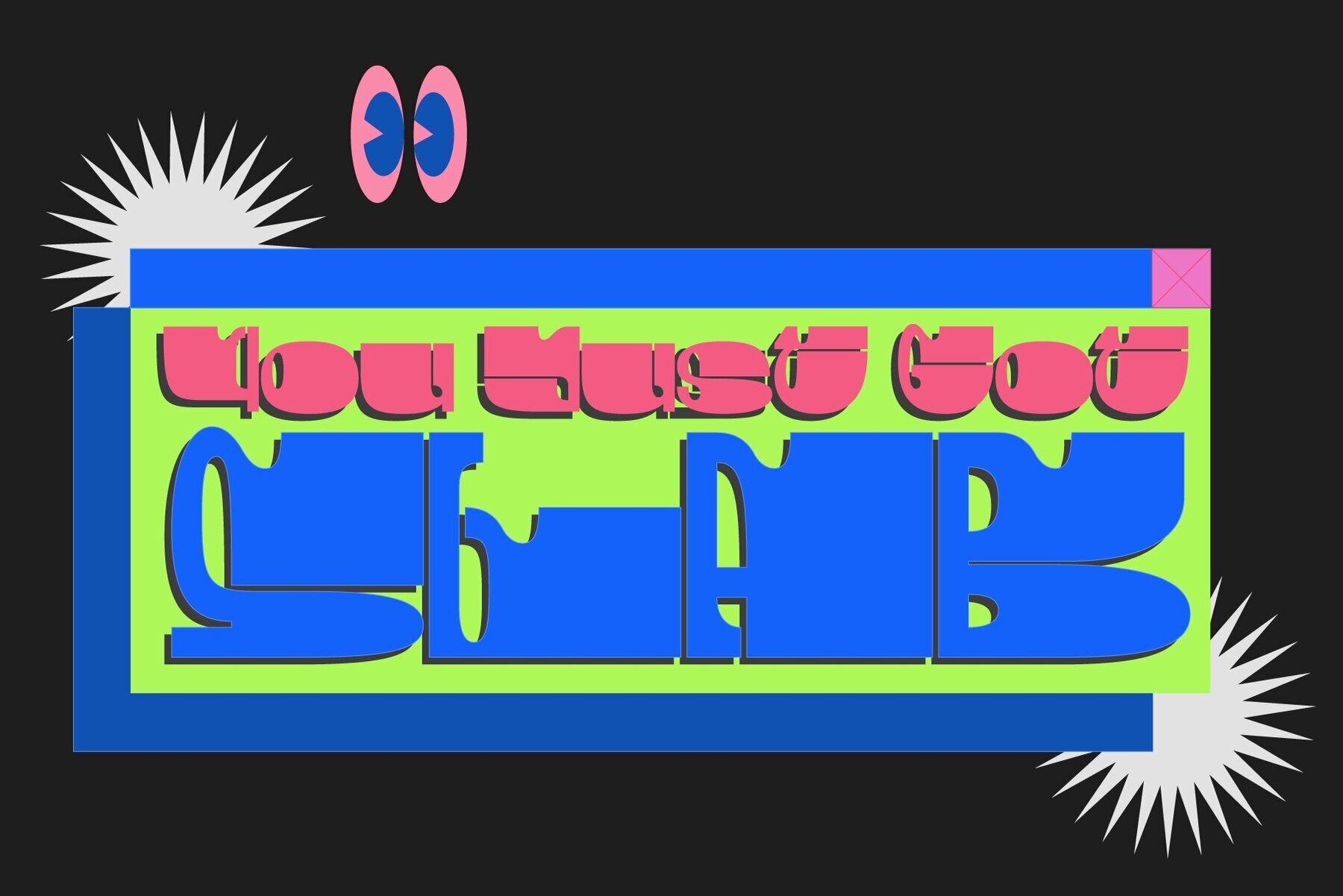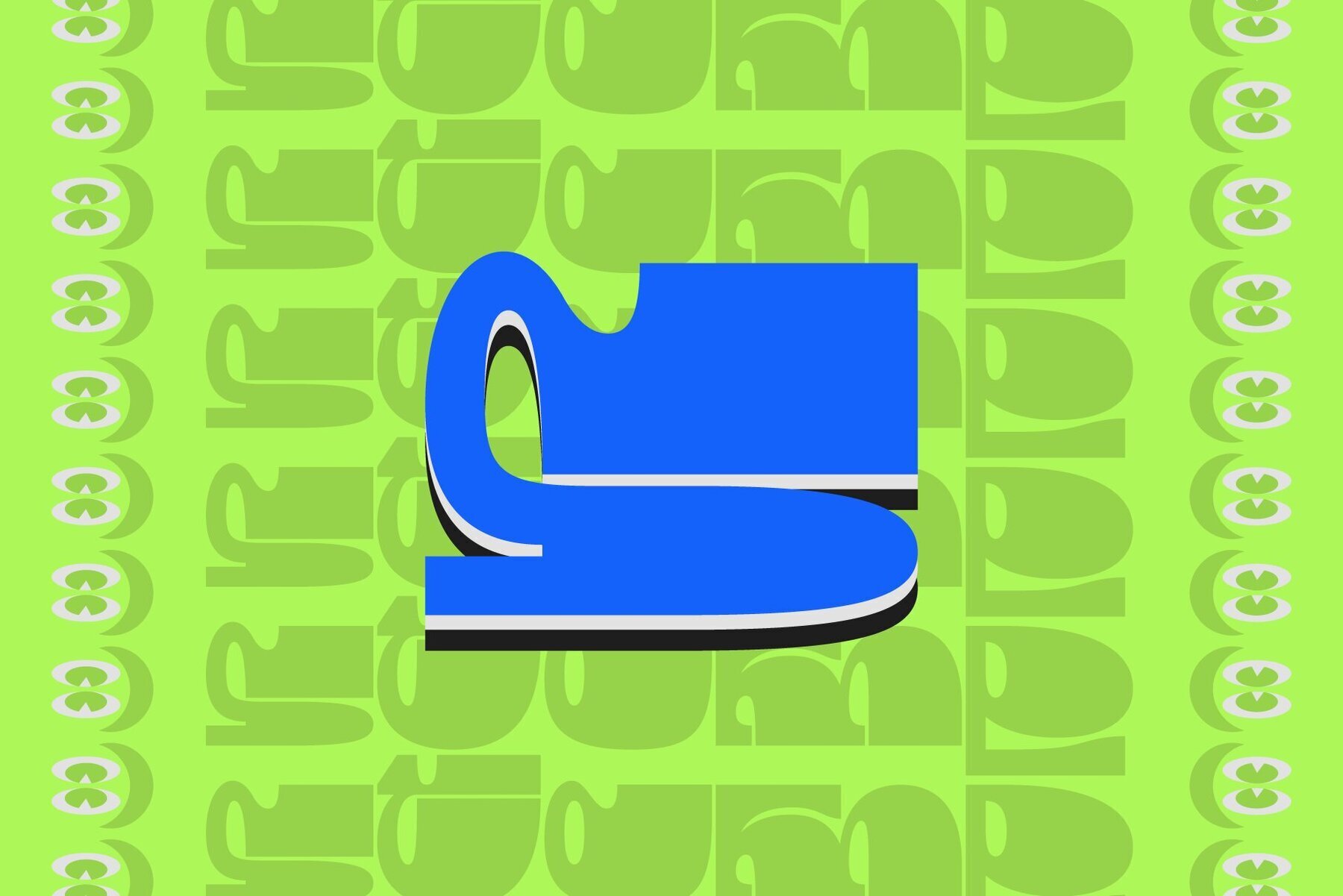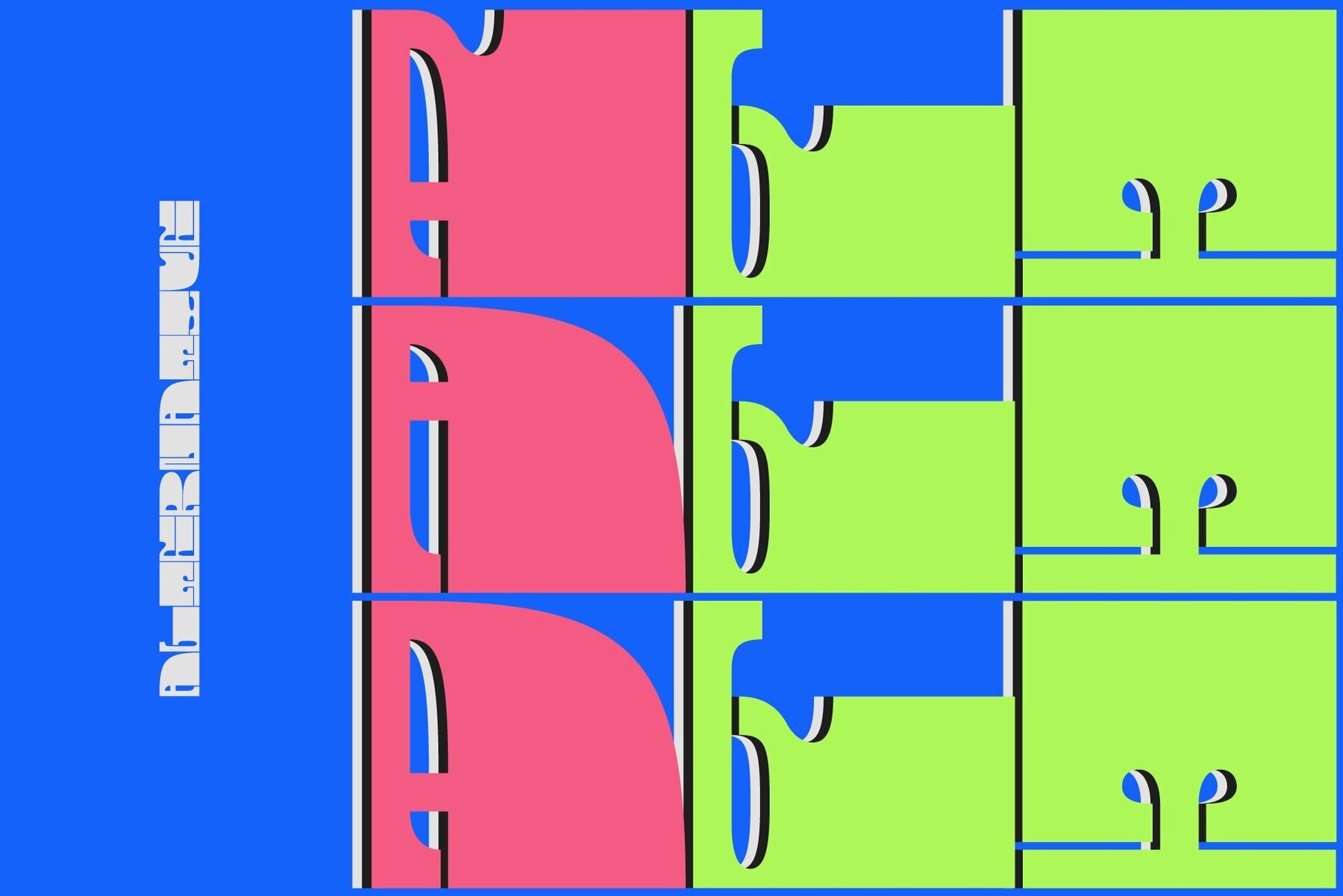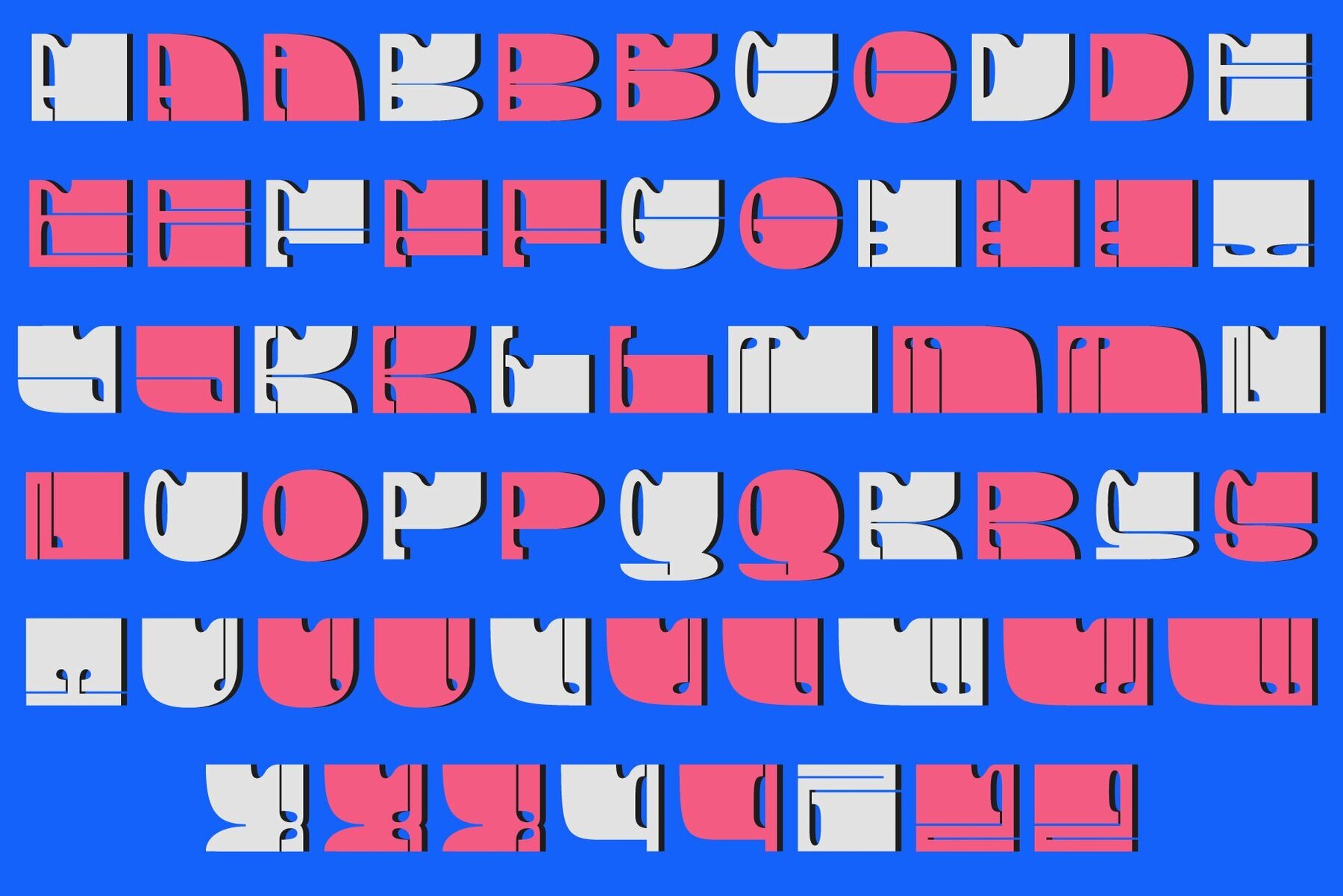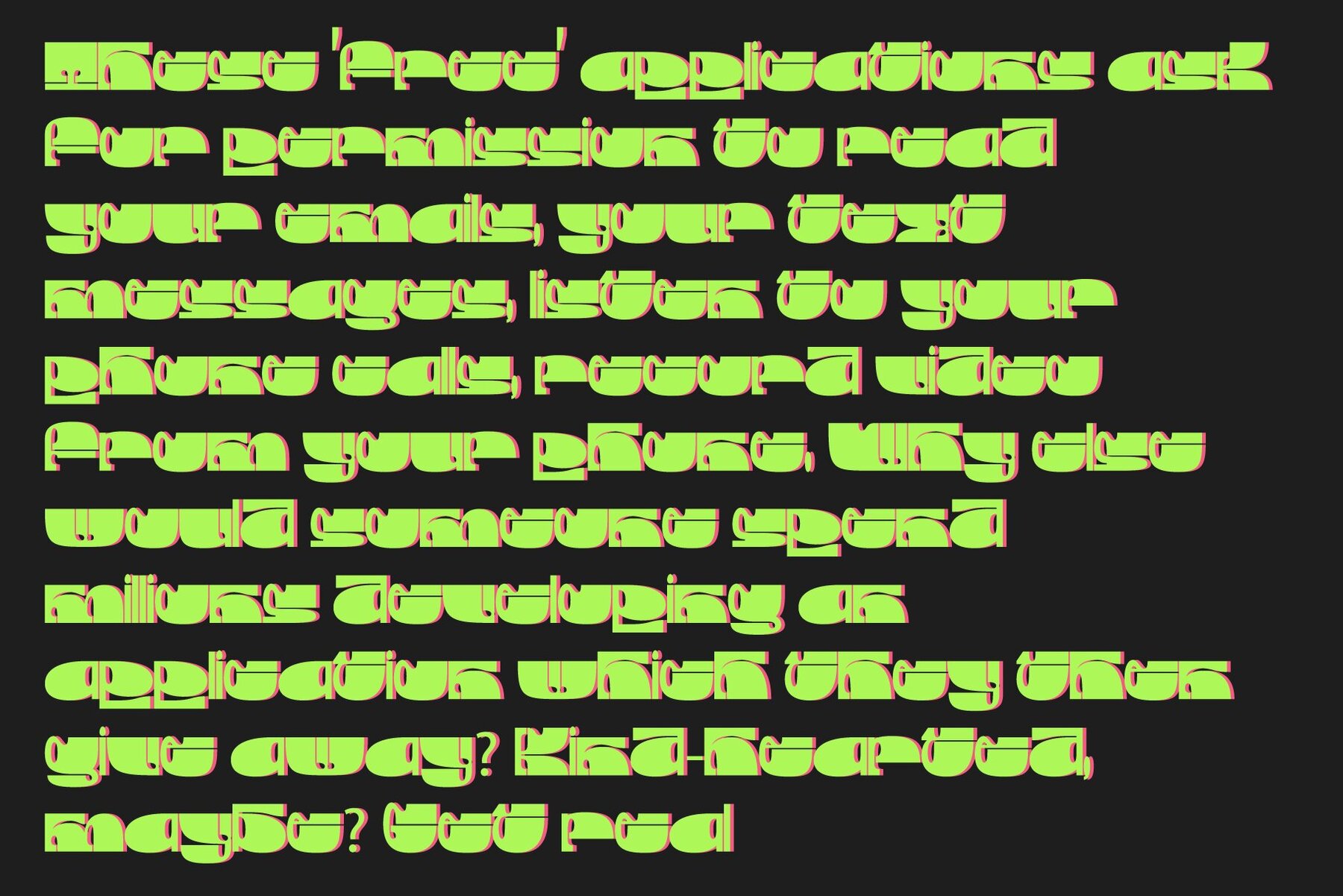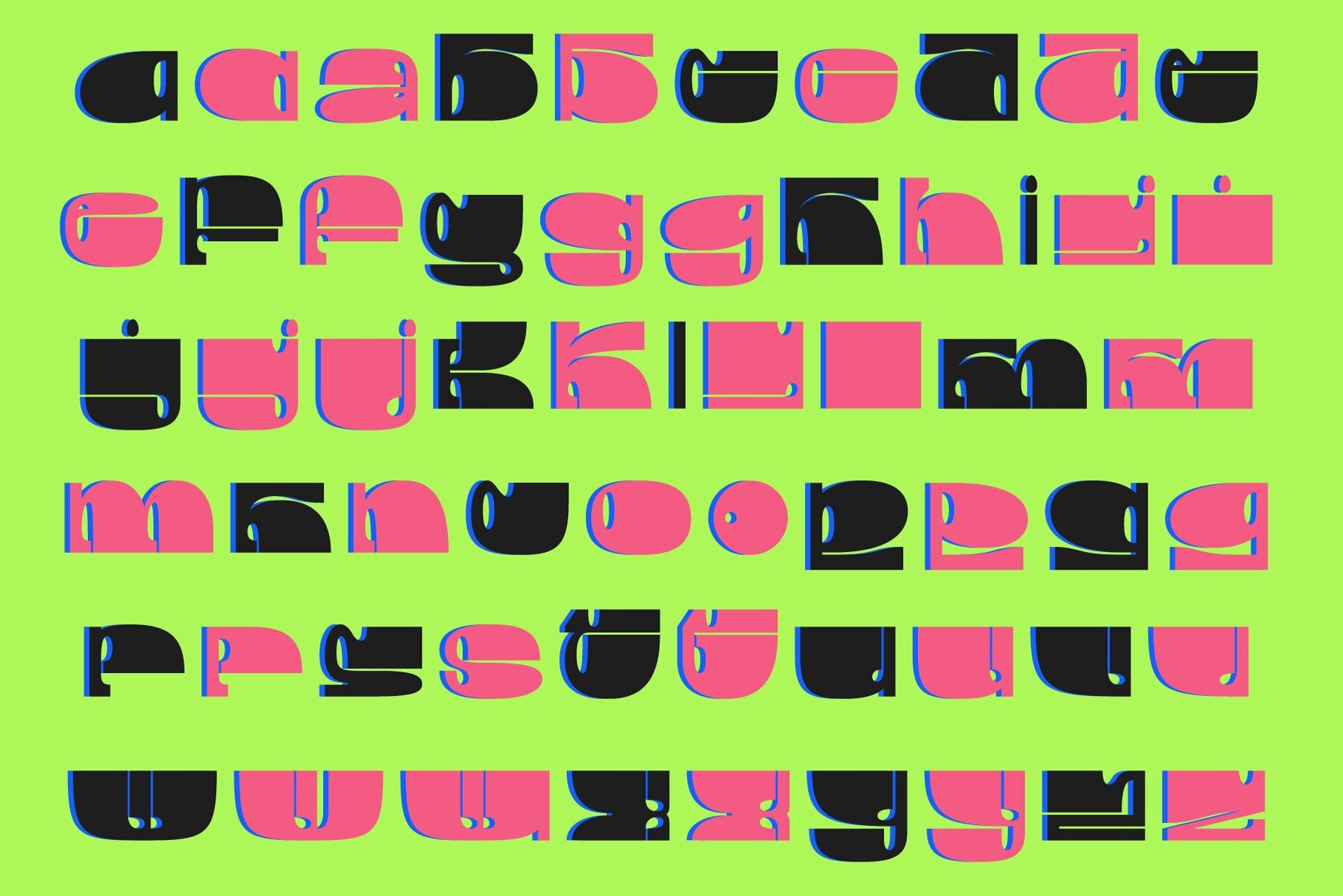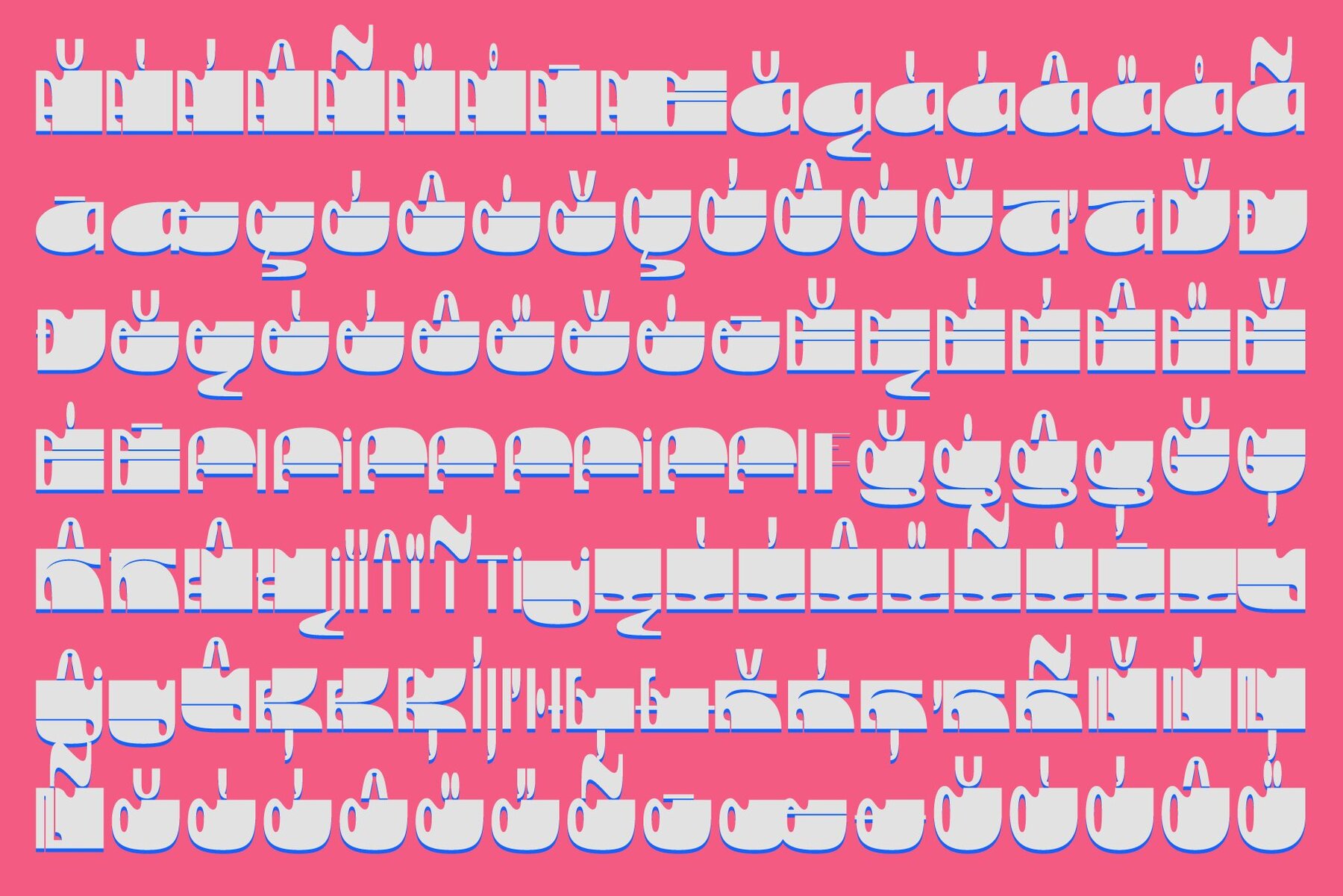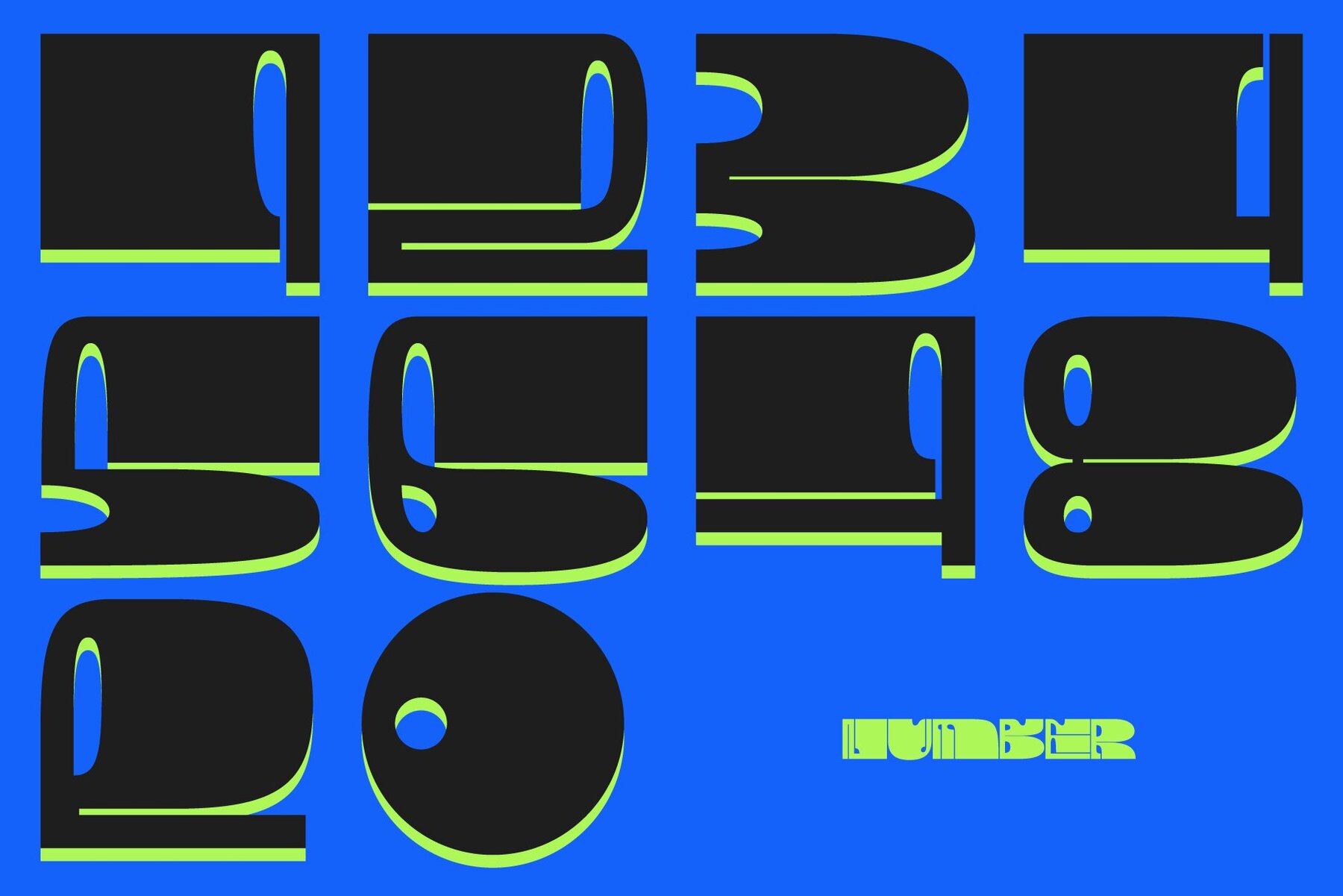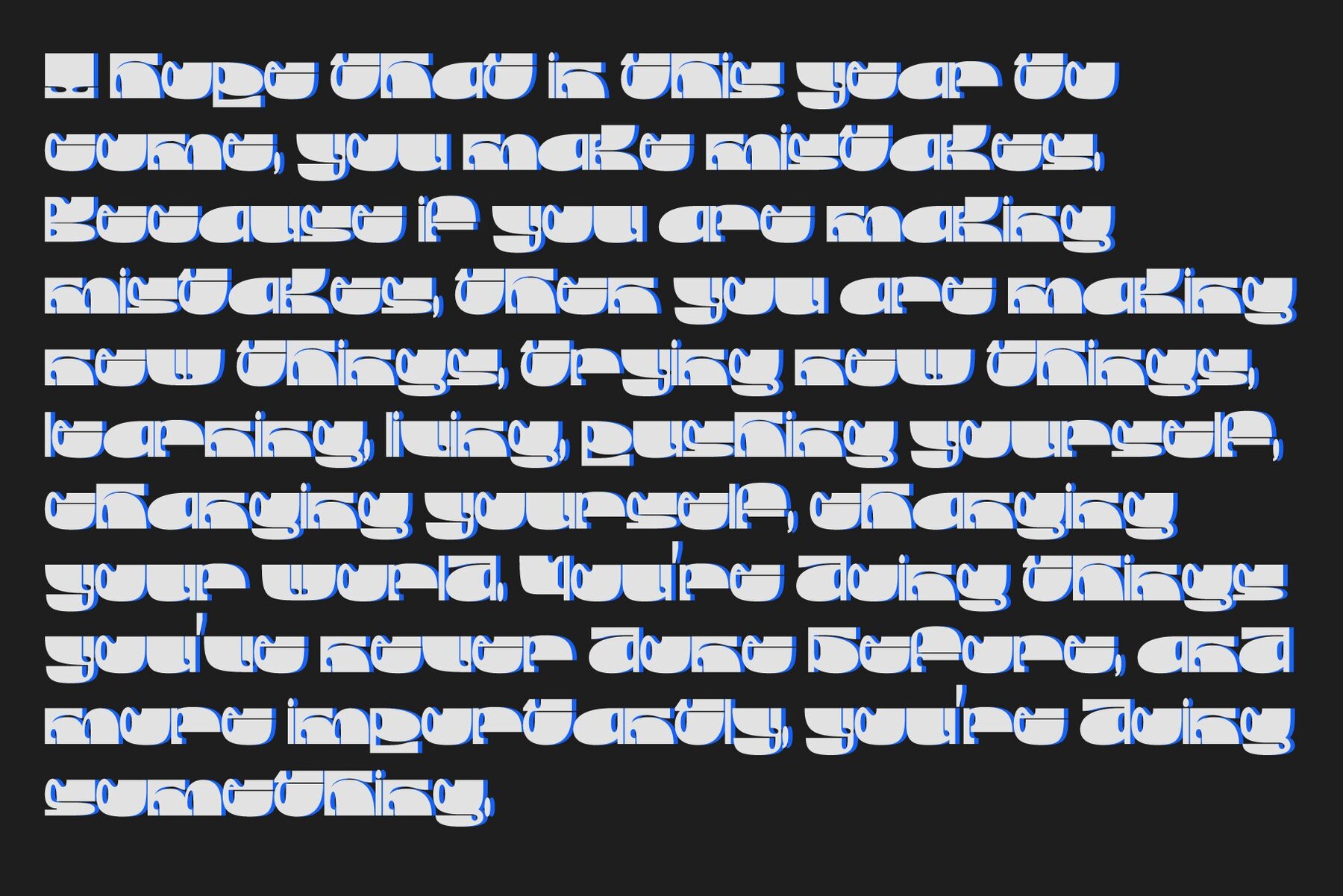
Stomp Font
Stomp Regular
Catch the attention of your audience with Stomp, a unique slab font by Oui Studio, that encapsulates the spirit of 1980s cartoons and pop culture. Its dynamic shape is characterized by a balance of thick and thin lines, bringing a blend of vintage charm to modern design projects.Stomp: A Vintage Slab Font Inspired by 80s Pop Culture
Stomp breathes life into any design, ensuring it stands out with its homage to nostalgic aesthetics and contemporary appeal.